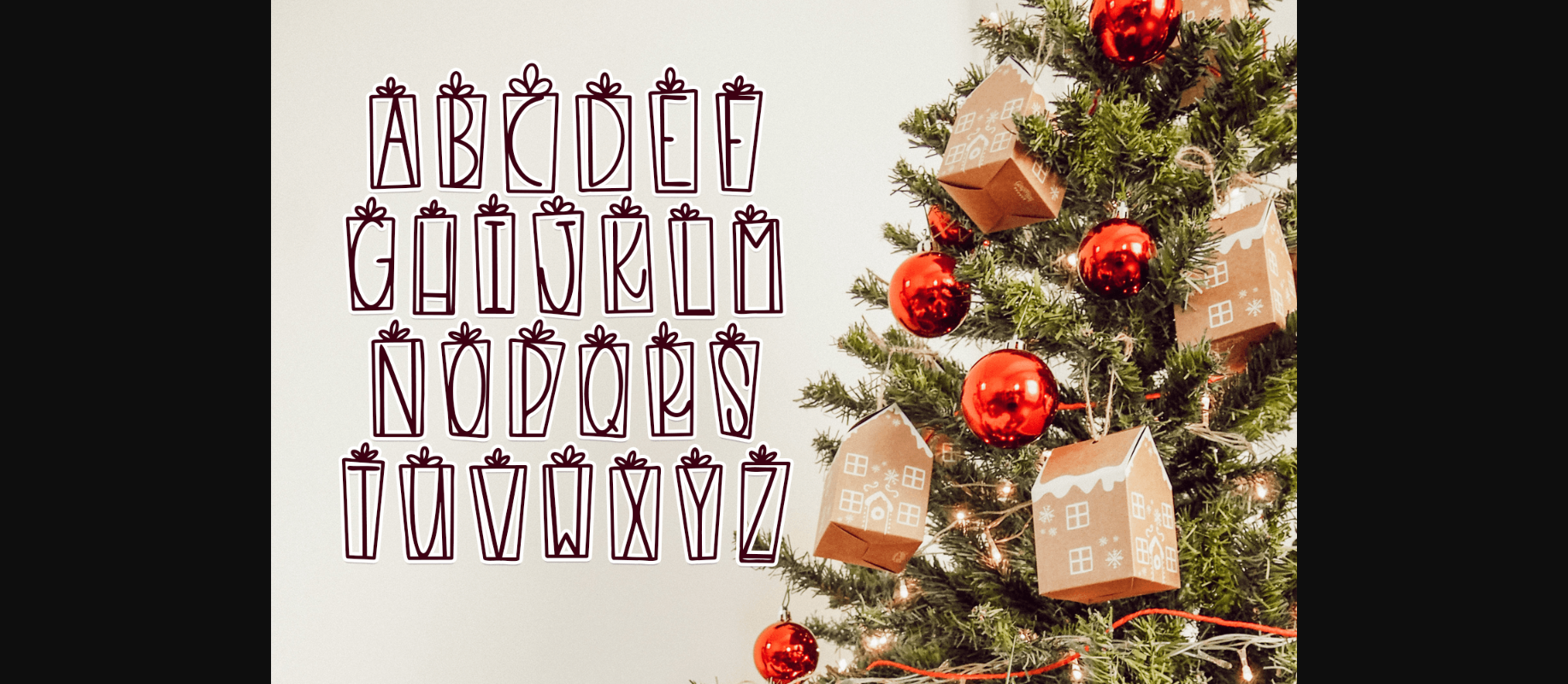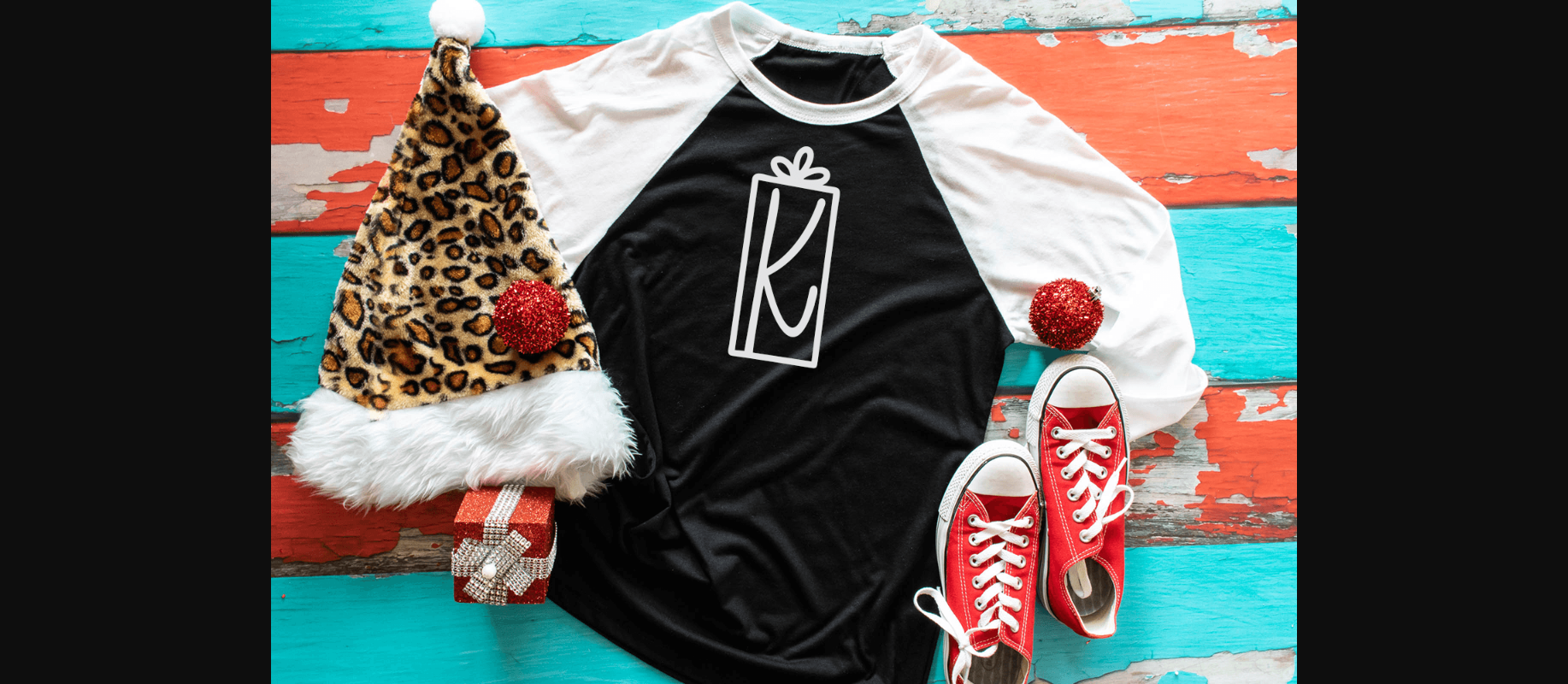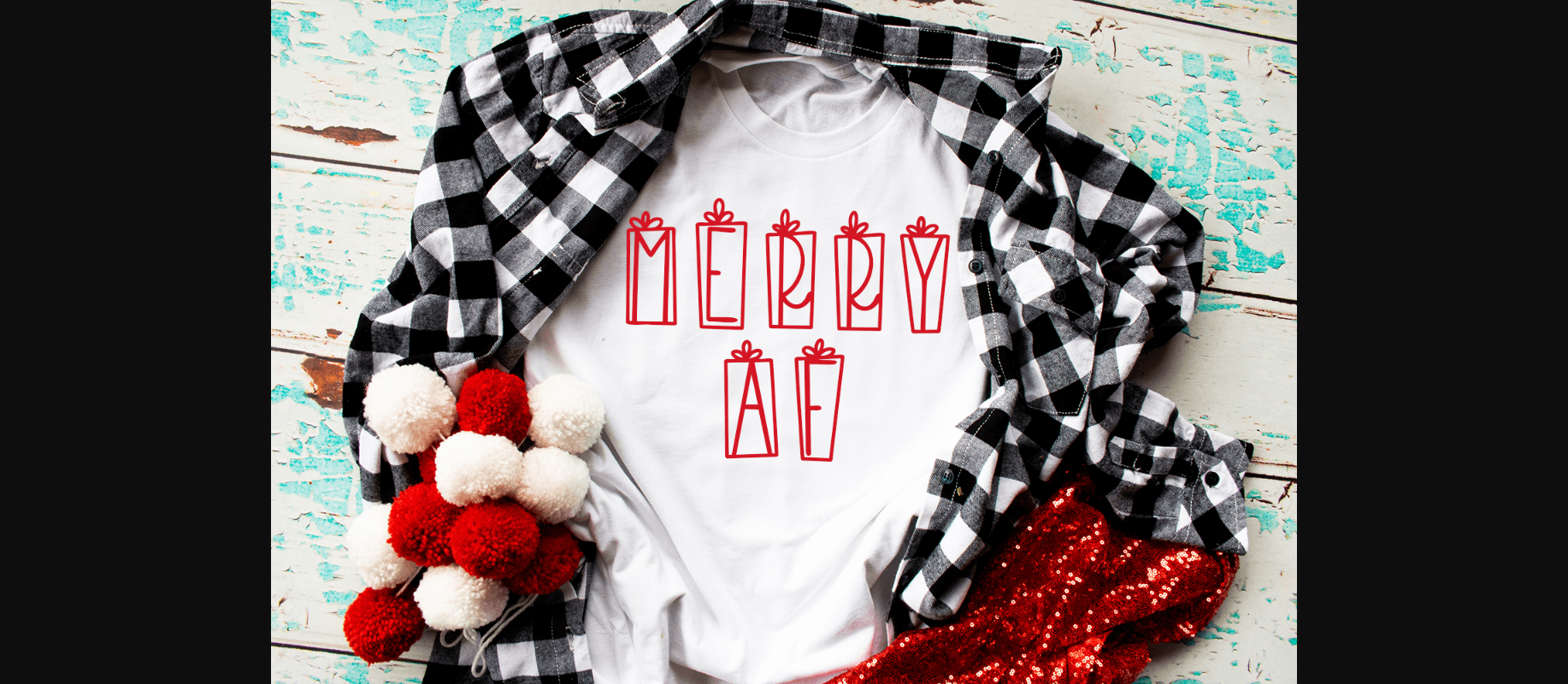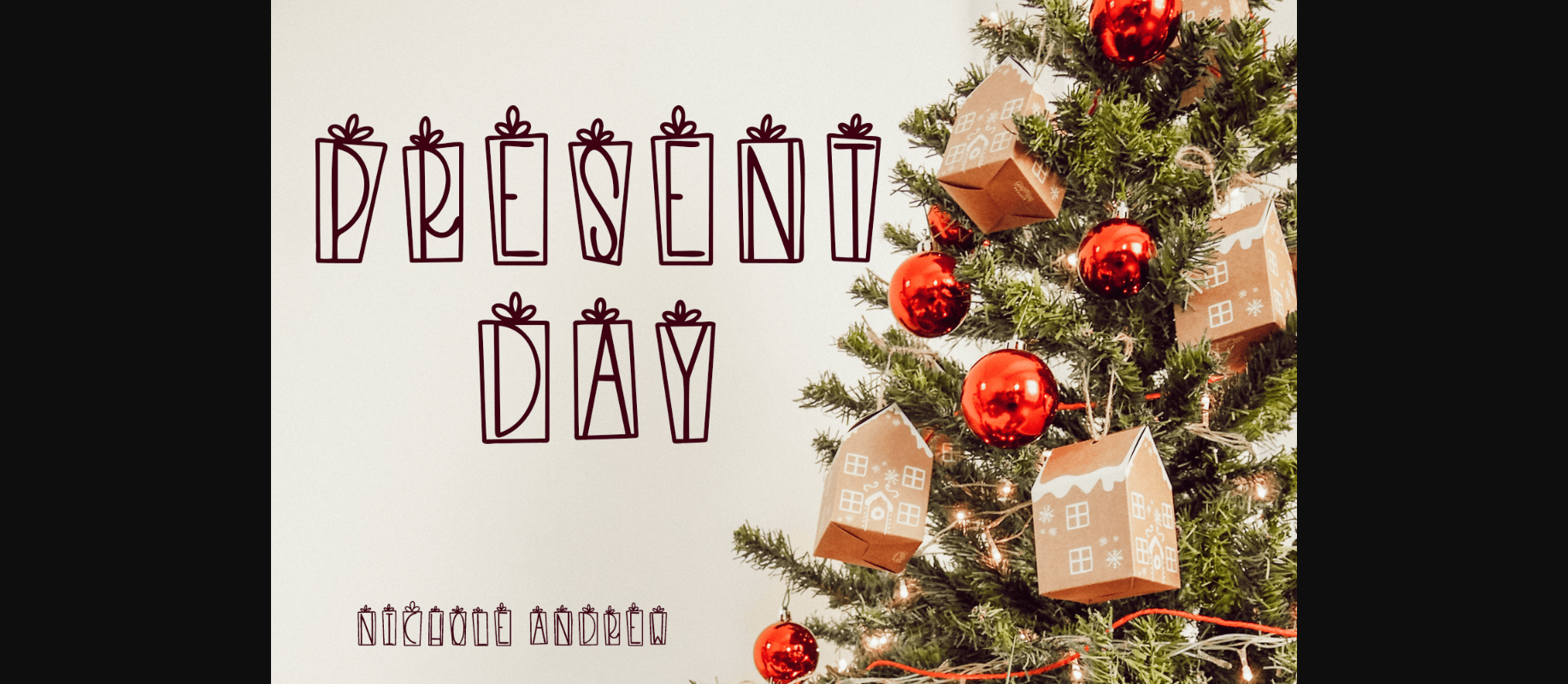
HomeDecorative FontsPresent Day Font Decorative Fonts Present Day Font FacebookXPinterestWhatsApp 1 of 6 ... Present Day Font Poster 2... Present Day Font Poster 3... Present Day Font Poster 4... Present Day Font Poster 5... Present Day Font Poster 6... About Present Day Font Introducing Present Day, a fun decorative font. Present Day features cute uppercase monograms, with present boxes around the letters. This font is perfect for gift tags, monogrammed items, stockings, and more! DOWNLOAD NOW People also explored Pubrih Font Hollytext Font Morning Lover Font United Font Bhaillia Font Amoni Boni Font Starting Point Font Chalked Font Floweritha Font 345 0 TagsPresent Day Font Previous articleSanta Hat Letters FontNext articleRafi Flower Monogram Font LEAVE A REPLY Cancel reply Comment: Please enter your comment! Name:* Please enter your name here Email:* You have entered an incorrect email address! Please enter your email address here Website: Save my name, email, and website in this browser for the next time I comment. Personal Use Free Hollow Personal Use Free Read more about this font Scarlove Personal Use Free Read more about this font Written by Hand Personal Use Free Read more about this font Hearted Personal Use Free Read more about this font BLOG Using Fonts in Digital Marketing: Tips to Strengthen Your Brand Identity In the realm of digital marketing, every visual element plays a crucial role in shaping a brand's identity, and fonts are no exception. The... Elegant Wedding Invitation Fonts – Handwritten & Script Fonts Fonts That Capture the Spirit of New York City To increase your work productivity, choose the most readable fonts.